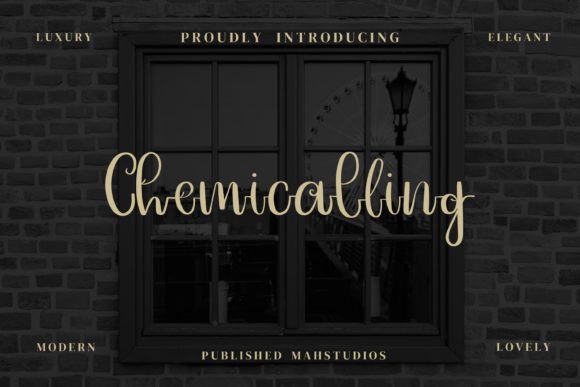
Chemicalling Font: Unleash Your Creativity with this Unique Handwritten Script Font
Are you tired of using the same old fonts for your creative projects? Do you want to add a personal touch to your designs and make them stand out from the crowd? Look no further than Chemicalling Font, a cool and unique handwritten script font that’s sure to take your work to the next level. In this article, we’ll explore the features and benefits of Chemicalling Font, and show you how to incorporate it into your designs to achieve amazing results.
What is Chemicalling Font?
Chemicalling Font is a beautifully crafted handwritten script font that’s perfect for adding a touch of personality to your designs. With its unique and flowing script, Chemicalling Font is ideal for use in a variety of creative projects, from handmade crafts and DIY tutorials to digital designs and marketing materials.
Key Features of Chemicalling Font
• Unique and Handwritten: Chemicalling Font is a one-of-a-kind handwritten script font that’s sure to add a personal touch to your designs.
• Cool and Modern: With its sleek and modern design, Chemicalling Font is perfect for designers and crafters who want to create fresh and contemporary designs.
• Easy to Read: Despite its unique and flowing script, Chemicalling Font is easy to read and understand, making it perfect for use in a variety of applications.
• Versatile: Chemicalling Font can be used in a wide range of creative projects, from handmade crafts and DIY tutorials to digital designs and marketing materials.
Benefits of Using Chemicalling Font
So why should you choose Chemicalling Font for your creative projects? Here are just a few benefits of using this amazing font:
• Adds a Personal Touch: With Chemicalling Font, you can add a personal touch to your designs and make them stand out from the crowd.
• Increases Creativity: The unique and flowing script of Chemicalling Font is sure to inspire your creativity and help you come up with fresh and innovative design ideas.
• Perfect for Handmade Crafts: Chemicalling Font is ideal for use in handmade crafts and DIY tutorials, where a personal touch can make all the difference.
• Great for Digital Designs: Chemicalling Font can also be used in digital designs, such as social media graphics, blog posts, and marketing materials.
How to Use Chemicalling Font
Tips and Tricks for Working with Chemicalling Font
Here are a few tips and tricks to help you get the most out of Chemicalling Font:
• Experiment with Different Sizes: Chemicalling Font looks great in a variety of sizes, so don’t be afraid to experiment and find the perfect size for your design.
• Combine with Other Fonts: Chemicalling Font can be combined with other fonts to create a unique and eye-catching design.
• Add a Personal Touch: Use Chemicalling Font to add a personal touch to your designs, such as a handmade or DIY feel.
Chemicalling Font is a cool and unique handwritten script font that’s perfect for designers and crafters who want to add a personal touch to their creative projects. With its flowing script and modern design, Chemicalling Font is sure to inspire your creativity and help you achieve amazing results. So why wait? Download Chemicalling Font today and start creating!